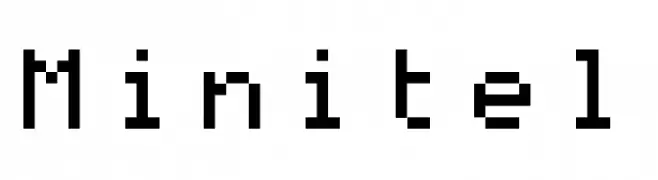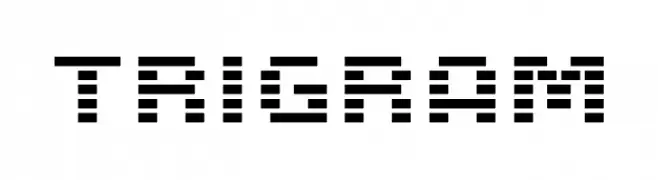
A modern, monospaced font with a clean and minimalistic design.
A pixelated, monospaced font with a retro digital style.
A vintage typewriter-style font with monospaced characters and a classic, mechanical look.
A pixelated, monospaced font with a retro digital aesthetic.
A modern, geometric monospaced font with low contrast and uniform spacing.
A pixelated, monospaced font with a retro digital style.
A pixelated, monospaced font with a retro digital aesthetic.
A vintage, monospaced typewriter-style font with a rough, mechanical feel.